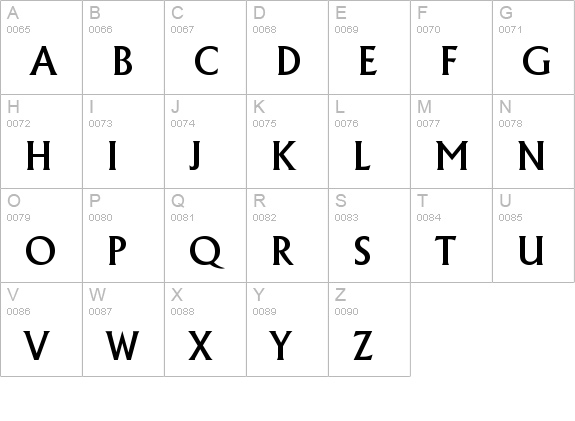
Adelon-Medium is a balanced, medium-weight variant in the Adelon typeface family \xE2\x80\x94 well suited to sub-headlines, navigation, and balanced editorial work.
Adelon-Medium font is a timeless and versatile typeface that exudes elegance and sophistication. With its balanced letterforms and classic design, Adelon-Medium is perfect for a wide range of design projects, from branding to editorial design. This font strikes the perfect balance between traditional and modern, making it a go-to choice for designers looking to add a touch of sophistication to their work. And the best part? Adelon-Medium font is available for free download at FontsMarket.com. Simply visit the website to access this stunning typeface and elevate your designs with its timeless appeal. Don't miss out on the opportunity to enhance your projects with the beauty and versatility of Adelon-Medium font - download it for free today!